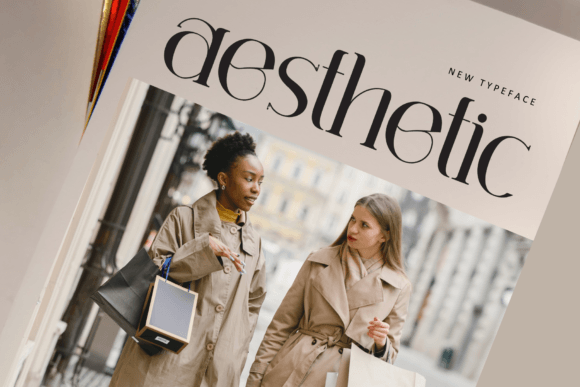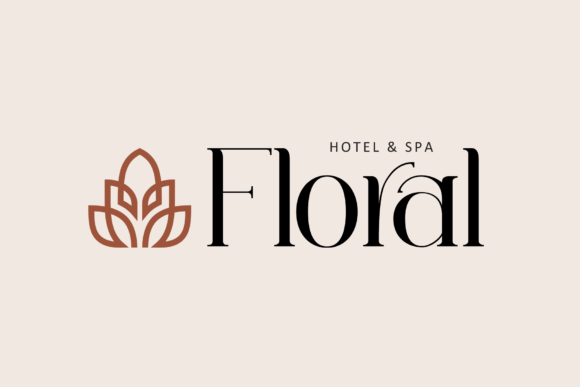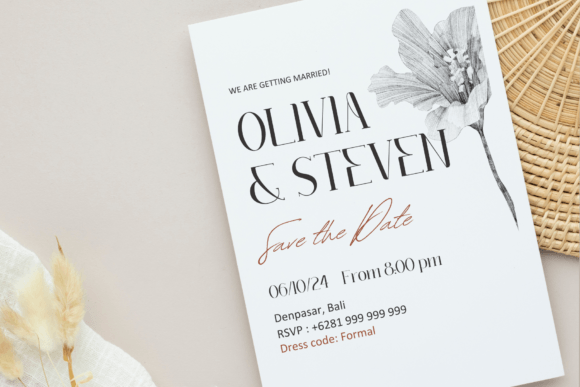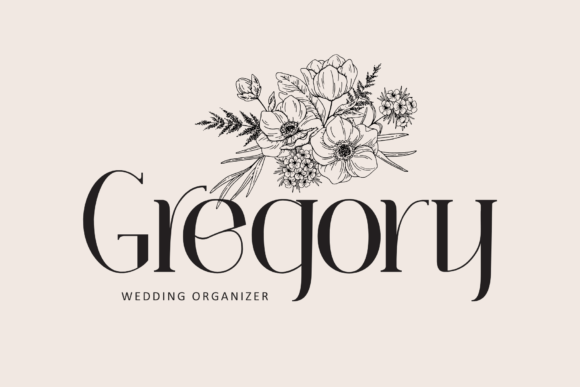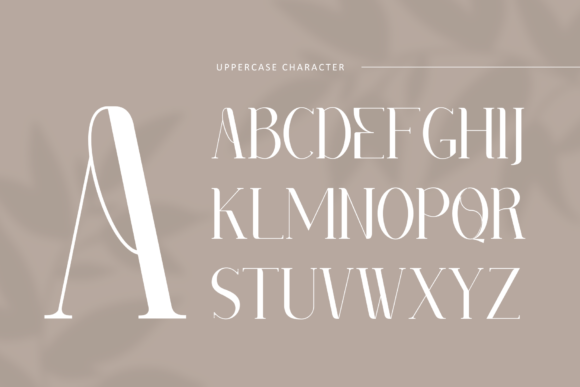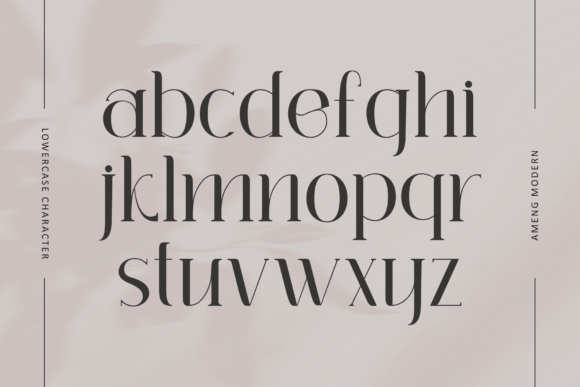
Introducing Ameng Font: Elevate Your Designs with Elegance and Sophistication
In the world of typography, fonts play a crucial role in conveying the tone and personality of a design. For designers and crafters seeking a font that embodies elegance, romance, and modernity, Ameng Font is an exceptional choice. This stunning serif font boasts stylish curves, making it a perfect addition to any font collection.
The Ameng Font Advantage: A Perfect Blend of Style and Versatility
Ameng Font stands out for its unique blend of classic and modern elements. Its elegant curves and refined lines create a sophisticated look that is both timeless and trendy. This versatile font is suitable for a wide range of design projects, including:
- Logos and branding: Create a lasting impression with Ameng’s beautiful typographic harmony.
- Social media posts: Elevate your online presence with stylish and engaging content.
- Advertisements: Grab attention with Ameng’s elegant and refined aesthetic.
- Product designs: Add a touch of sophistication to your products with Ameng’s luxurious feel.
Key Features of Ameng Font
So, what makes Ameng Font an exceptional choice for designers and crafters? Here are some of its key features:
- Elegant curves: Ameng’s stylish curves add a touch of romance and sophistication to any design.
- Serif design: The font’s serif design provides a classic and refined look that is perfect for a wide range of applications.
- Modern feel: Ameng’s modern aesthetic ensures that your designs look fresh and up-to-date.
- Typographic harmony: The font’s beautiful typographic harmony makes it easy to create visually appealing designs.
Why Choose Ameng Font for Your Designs?
With so many fonts available, why should you choose Ameng Font for your designs? Here are just a few compelling reasons:
- Unique style: Ameng Font offers a distinctive style that sets it apart from other fonts.
- Versatility: The font’s versatility makes it suitable for a wide range of design projects.
- Ease of use: Ameng Font is easy to use and pairs well with other fonts, making it a great addition to any font collection.
- High-quality design: The font’s high-quality design ensures that your designs look professional and polished.
Tips for Using Ameng Font Effectively
To get the most out of Ameng Font, here are some tips for using it effectively:
- Pair with complementary fonts: Pair Ameng Font with complementary fonts to create visually appealing designs.
- Experiment with font sizes: Experiment with different font sizes to create a hierarchy of information.
- Use in combination with images: Use Ameng Font in combination with images to create stunning visual designs.
In conclusion, Ameng Font is an exceptional choice for designers and crafters seeking a font that embodies elegance, romance, and modernity. Its unique style, versatility, and ease of use make it a great addition to any font collection. Whether you’re working on a logo, social media post, advertisement, or product design, Ameng Font is sure to elevate your designs to the next level.